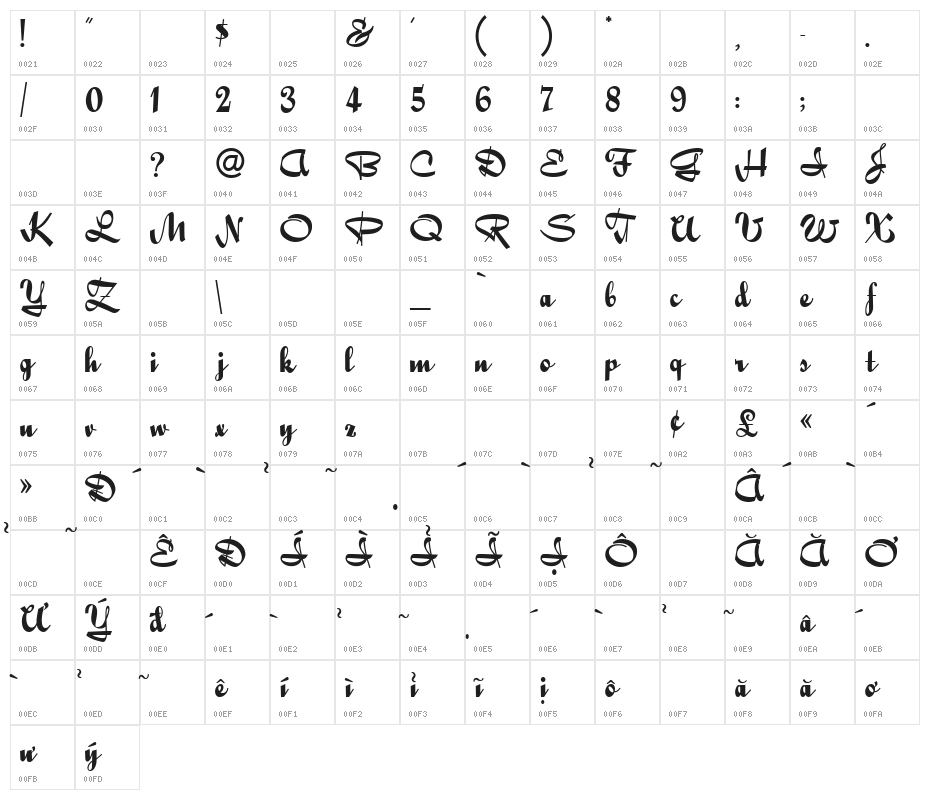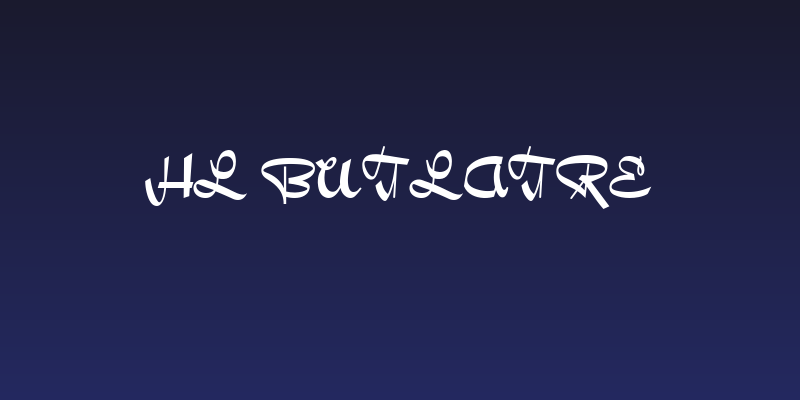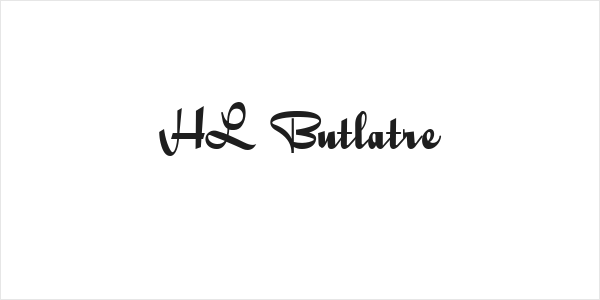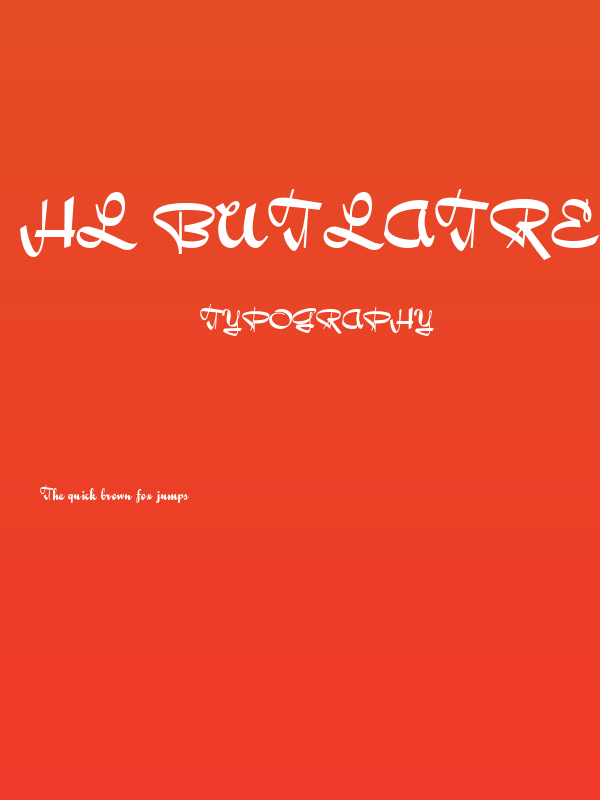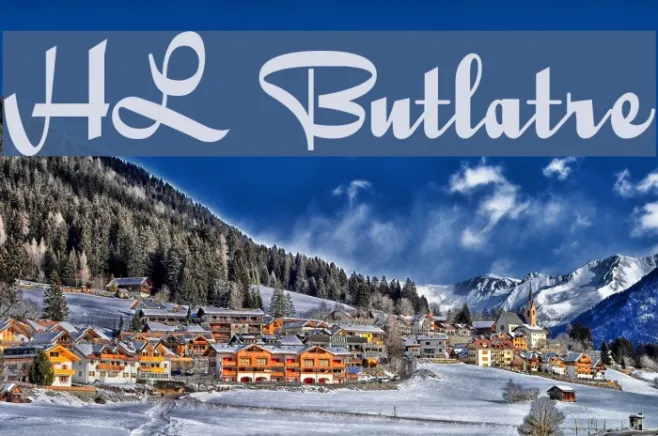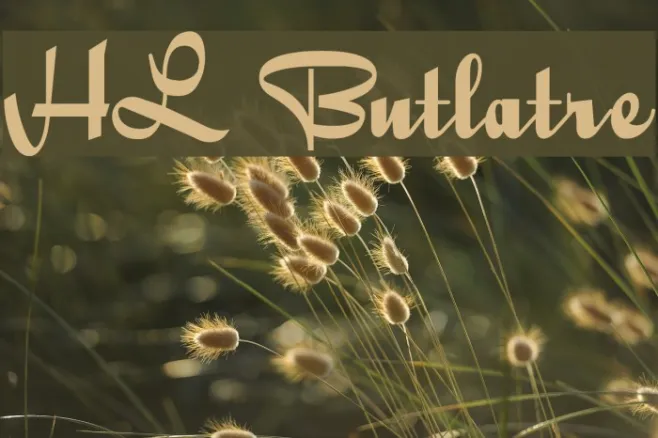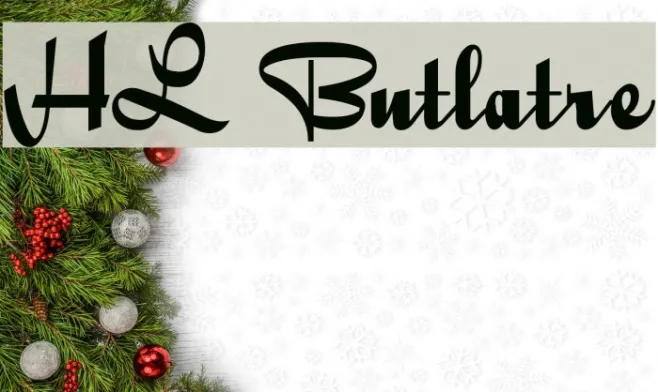
HL Butlatre Font
HL Butlatre Description
This font features a dynamic and expressive style with a blend of cursive and decorative elements. The uppercase letters are characterized by bold, sweeping strokes and intricate loops, giving them a dramatic flair. The lowercase letters maintain a more fluid and connected appearance, enhancing the script-like quality. Numbers and special characters are bold and consistent with the overall style, ensuring readability while maintaining the decorative theme. The font's unique design makes it suitable for creative and artistic projects, where a touch of elegance and personality is desired.
| Proposed Projects | Ideal for wedding invitations, branding, logo design, and artistic posters. |